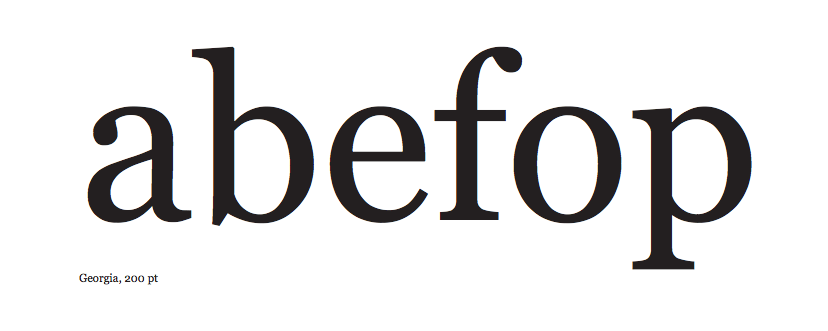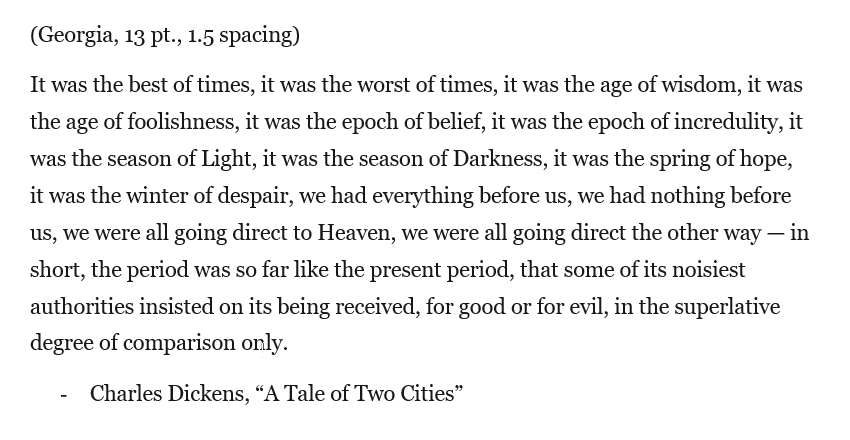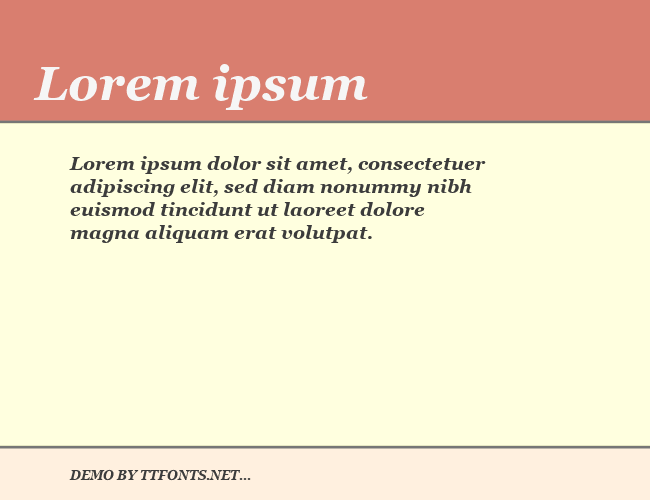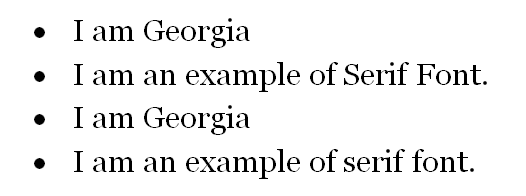
Georgia
Georgia Font Example
Georgia is specifically created for on screen use so youll find it often online in magazine or newspaper designs. Start with the font you want and end with a generic family to let the browser pick a similar font in the generic family if no other fonts are available. This page illustrates georgia normal and georgia bold fonts in sizes ranging from 12px to 28px.
The quick brown fox jumps over the lazy dog. This is a paragraph palatino linotype book antiqua palatino serif. Version 100 georgia 100 was added to our collection of core fonts for the web on 1 november 1996.
This paragraph is in georgiakeep reading for how to use the buttons to the left. Georgia is a serif font. The typeface is inspired by scotch roman designs of the 19th century and was based on designs for a print typeface in the same style carter was working on when.
If youre thinking about using georgia then try 24px for headers. Version 200 georgia 200 which includes the euro proper old style figures and the full wgl4 character set was added to the windows 98 update web font pack in august 1998. It was supposed as a serif font that will appear classy but legible printed little or on low resolution screens.
Georgia and its companion verdana was expanded by font bureau carter cone and monotype to 20 styles each and released as georgia pro and verdana pro in 2013. Preview your fonts your headline is in georgia this is a sub heading in georgia. Four basic styles designed by matthew carter and hinted by tom rickner in 1993 were released by microsoft in 1996 as part of the core fonts for the web collection.
It goes well with proxima nova helvetica neue brandon grotesque arial freight sans lucida grande open sans benton sans helvetica and lato. Georgia is usually a serif typeface built in 1993 by matthew carter and hinted by tom rickner to the microsoft company. The font family of a text is set with the font family property.
This is a heading. Georgia is a serif typeface designed in 1993 by matthew carter and hinted by tom rickner for the microsoft corporationit was intended as a serif typeface that would appear elegant but legible printed small or on low resolution screens.